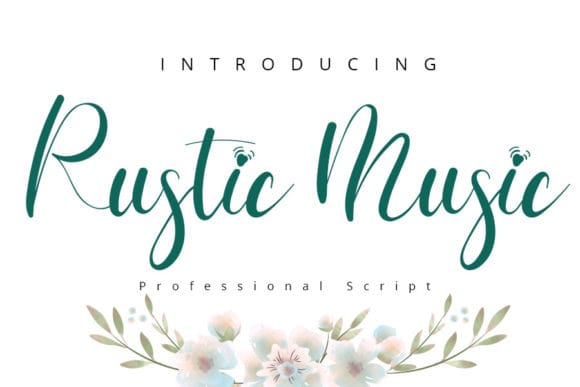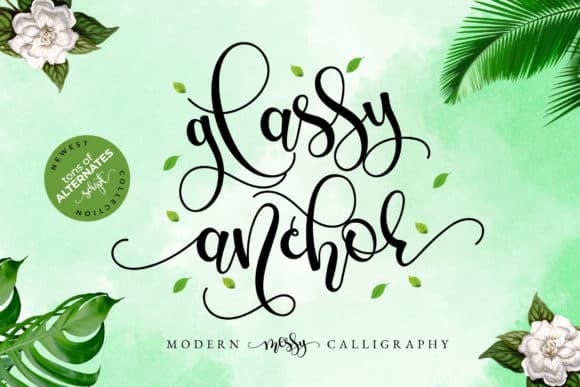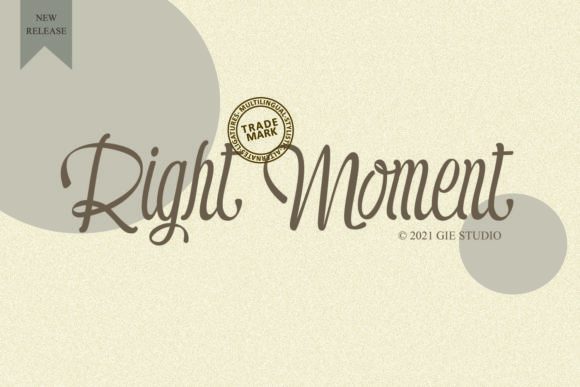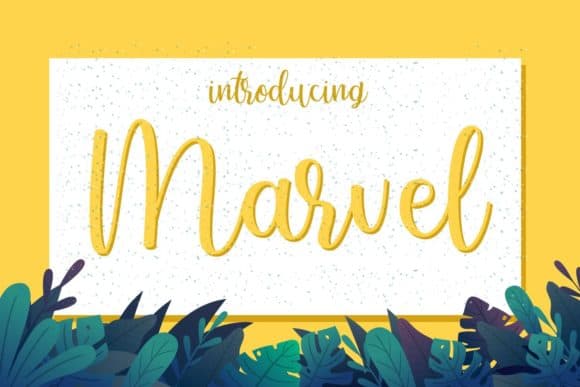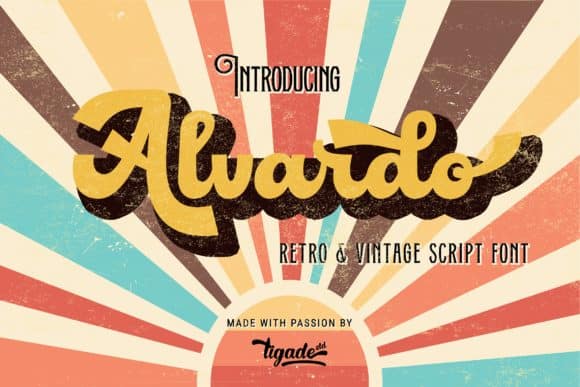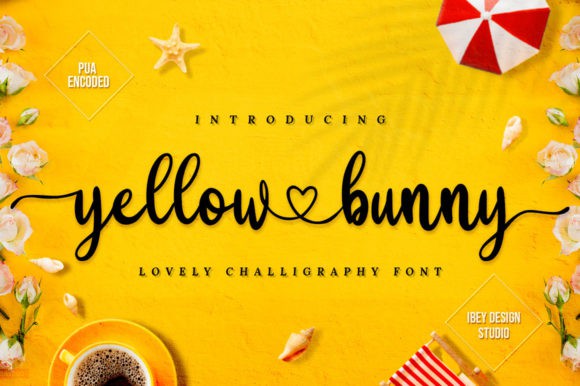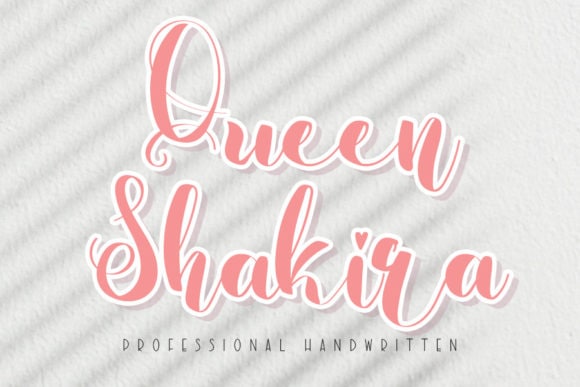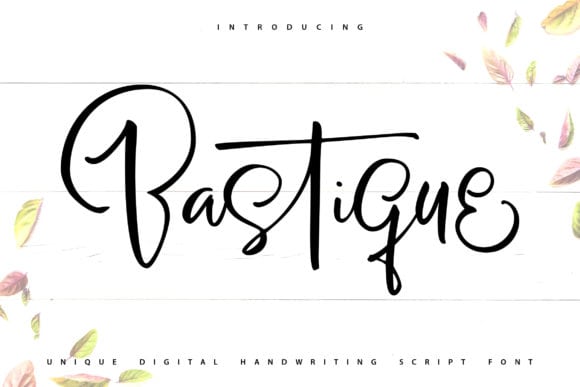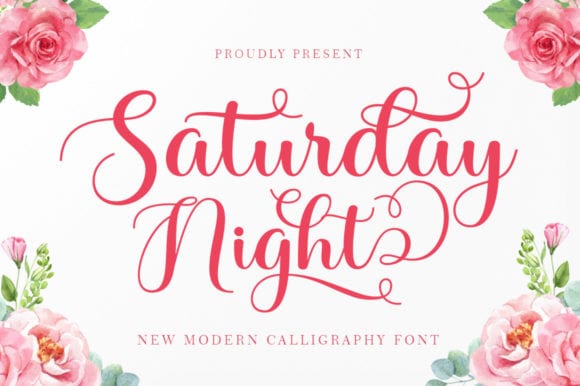
1. Rustic Music Font
Rustic Music is an awesome script font that’s neatly crafted and highly detailed. Whatever the theme, this font would be a wonderful complement to your font library, as it has the potential to enhance any creation!
2. Glassy Anchor Font
Glassy Anchor is a chic lettered and graceful script font. Fall for its ravishing style and use it to create gorgeous wedding invitations, beautiful stationary art, eye-catching social media posts, and much more!
3. Right Moment Font
Right Moment is a romantic and sweet calligraphy typeface with characters that dance along the baseline. It will add a luxury spark to any design project that you wish to create! This font is PUA encoded which means you can access all of the amazing glyphs and ligatures with ease!
4. Marvel Font
Marvel is an elegant and dainty handwritten font that features sweet and delicate swashes. This original look will appeal to a wide range of crafty ideas, from letterheads and titles, to stationery.
5. Alvardo Font
Alvardo is a retro and bold script font. This font is PUA encoded which means you can access all of the glyphs and stylistic alternates with ease! It is looking great on product, headlines, magazines, logos, posters, branding and many more!
6. Yellow Bunny Font
Yellow Bunny is a romantic and sweet calligraphy typeface with characters that dance along the baseline. It will add a luxury spark to any design project that you wish to create! This font is PUA encoded which means you can access all of the amazing glyphs and ligatures with ease!
7. Queen Shakira Font
Queen Shakira is a chic and whimsical handwritten font. It has a modern and unique style and it will undoubtedly immerse your designs into a magical world.
8. Bastique Font
Bastique is a chic, refined script font that emanates sophistication and elegance. Its stylish alternates and ligatures make this font the perfect match for any project.
9. Saturday Night Font
Saturday Night is a romantic and round lettered calligraphy typeface with characters that dance along the baseline. It will add a luxury spark to any design project that you wish to create! This font is PUA encoded which means you can access all of the amazing glyphs and ligatures with ease!
10. Teacher Signature Font
Teacher Signature is a sweet, flowing and thin lettered script font. It can be used on a variety of design ideas. Fall in love with its incredibly versatile style and use it to create gorgeous wedding invitations, beautiful stationary art, eye-catching social media posts, and much more!